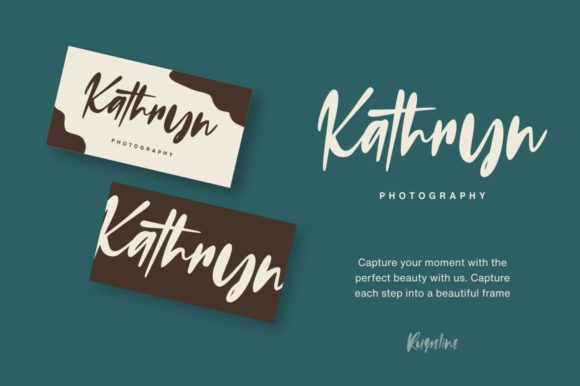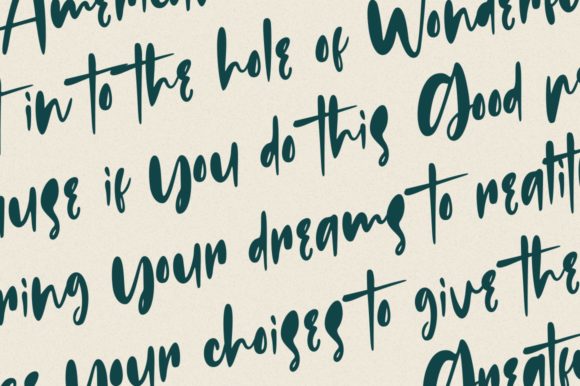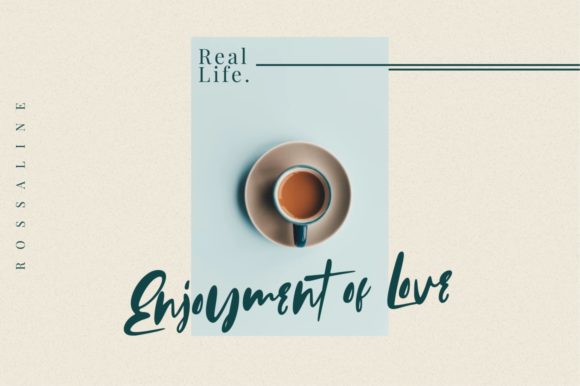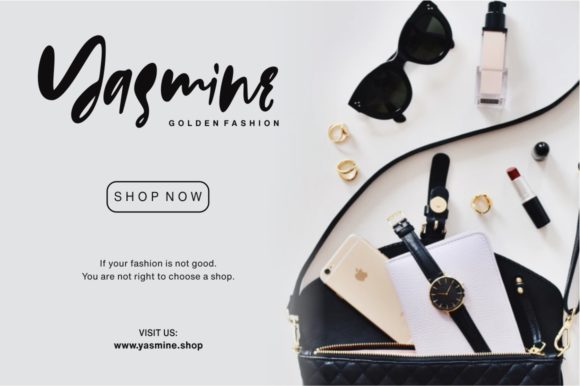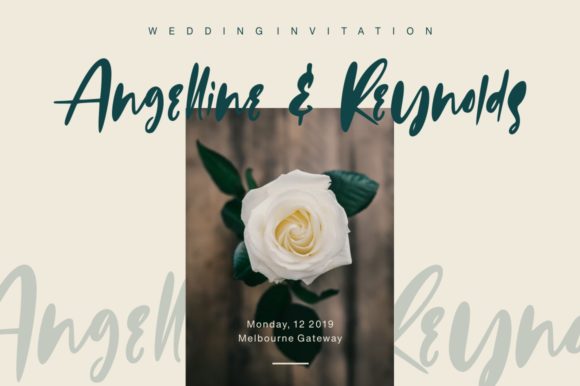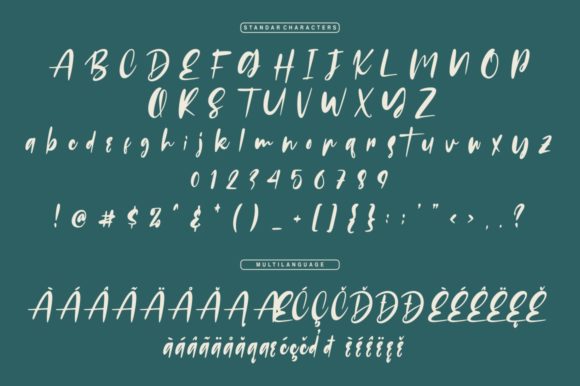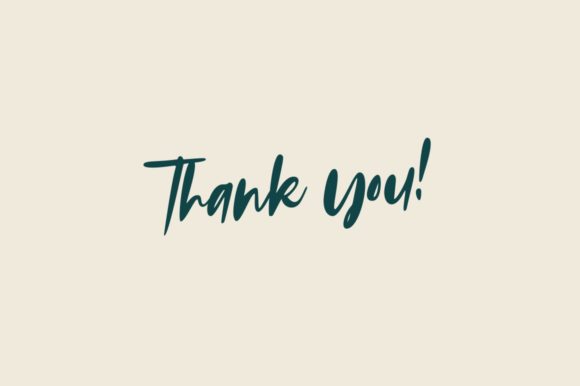
HomeScript FontsRusseline Font Script Fonts Russeline Font FacebookXPinterestWhatsApp Russeline Font Poster 2 Russeline Font Poster 3 Russeline Font Poster 4 Russeline Font Poster 5 Russeline Font Poster 6 Russeline Font Poster 7 Russeline Font Poster 8 About Russeline Font Russeline is a sweet and simple script with an authentic vibe. DOWNLOAD ON CREATIVE FABRICAThis font is sold and delivered by Creative Fabrica. Font Canyon may earn a commission if you buy through this link. People also explored Sign Panthers 2 Font Rionaldo Angelo Insects Font Fast Block Flames Font Belfast Star Font Nachel Victoria Font Belyeni Font Vintage Handmade Font Rittani 299 0 TagsRusseline Font Previous articleCalledliner FontNext articlePraktys Font LEAVE A REPLY Cancel reply Comment: Please enter your comment! Name:* Please enter your name here Email:* You have entered an incorrect email address! Please enter your email address here Website: Save my name, email, and website in this browser for the next time I comment. Personal Use Free Engebrechtre Personal Use Free Read more about this font Stigma Font Personal Use Free Read more about this font Propaniac Personal Use Free Read more about this font Makcex Personal Use Free Read more about this font BLOG 5 Fonts That Will Dominate Design Trends in 2026 5 Fonts for 2026 That Will Dominate Design Trends Typography plays a critical role in visual communication, and as we look ahead to 2026, it’s... Modern Sans-Serif Fonts That Brands Love in 2025 Where to Buy American Fonts Online in 2024 Top 7 Google Fonts Alternatives for Faster and Privacy-Friendly Web Design (2025)